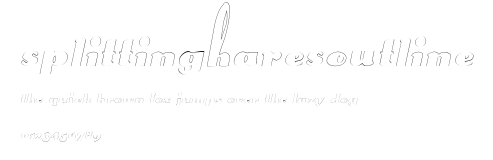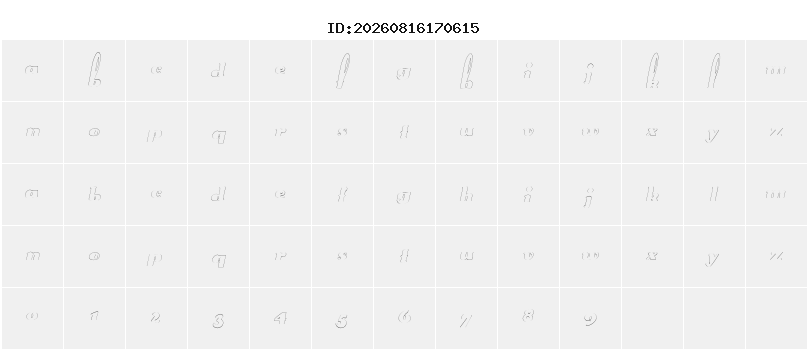
SplittingHaresOutline Preview
• Font Name: SplittingHaresOutline
• Full Font Name: SplittingHaresOutline-Oblique
• PostScript Name: SplittingHaresOutline-Oblique
• Character Count: 162
About SplittingHaresOutline.ttf
SplittingHaresOutline.ttf is a modern, elegant sans-serif font designed for ultimate readability and visual harmony. Perfect for branding, headlines, web design, and print materials.